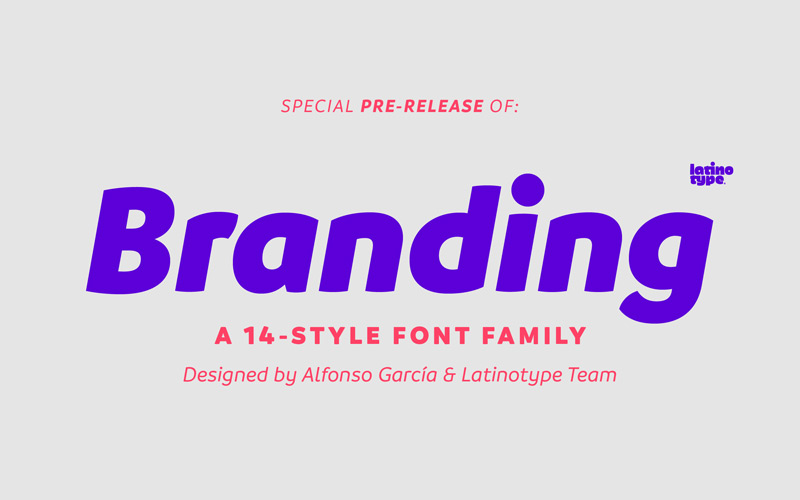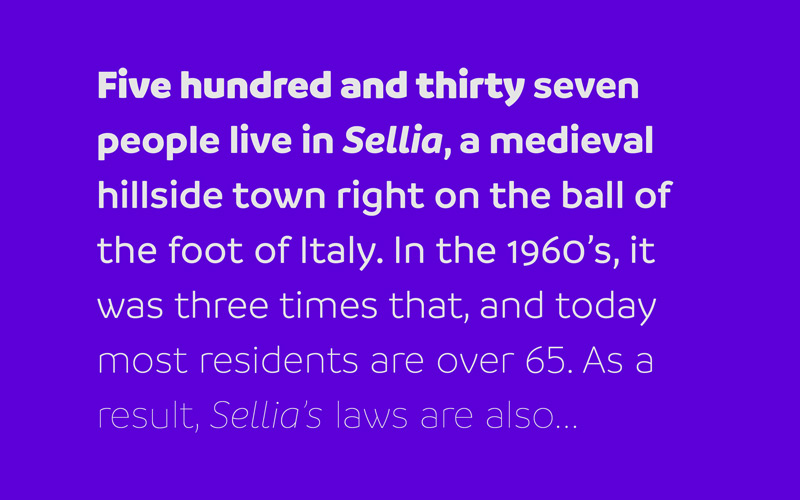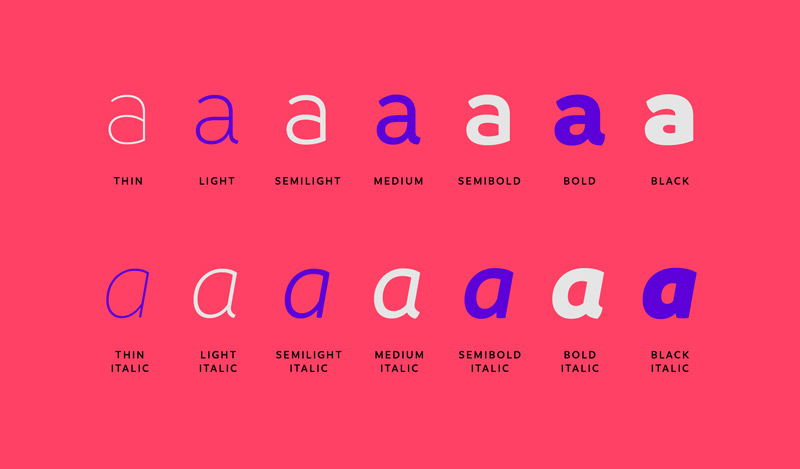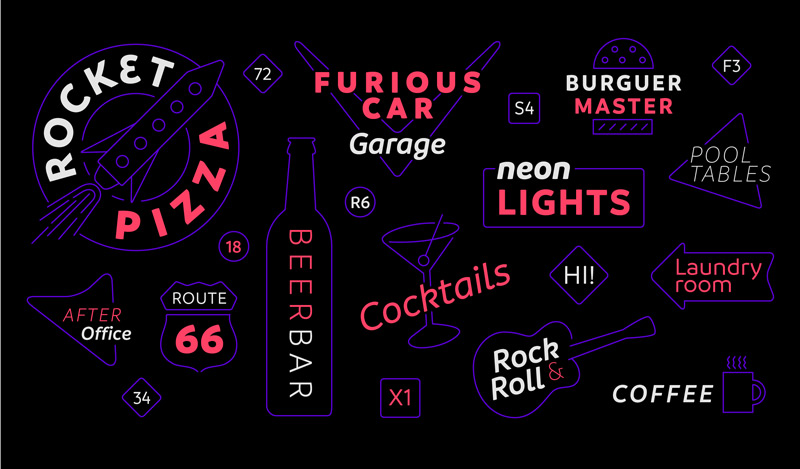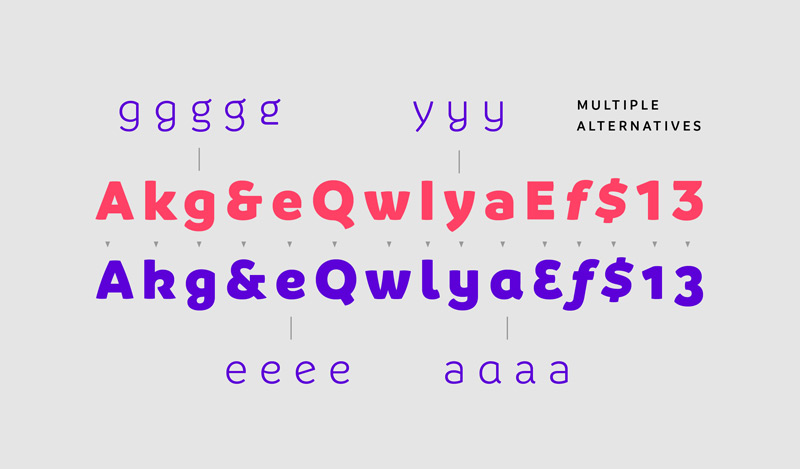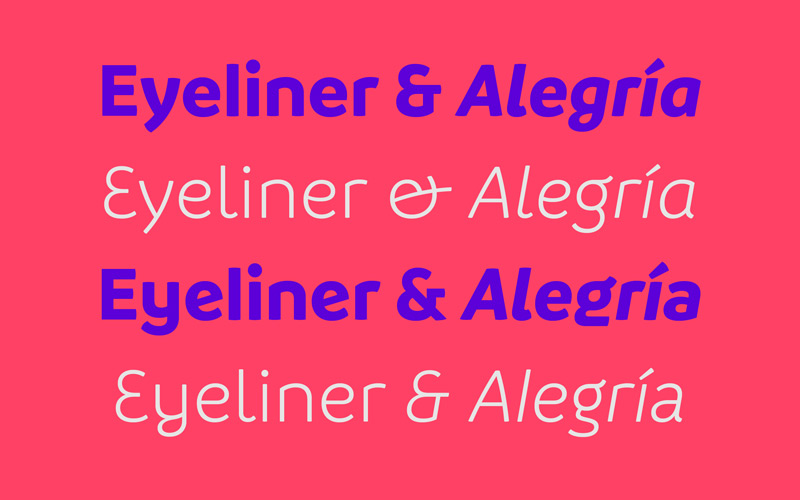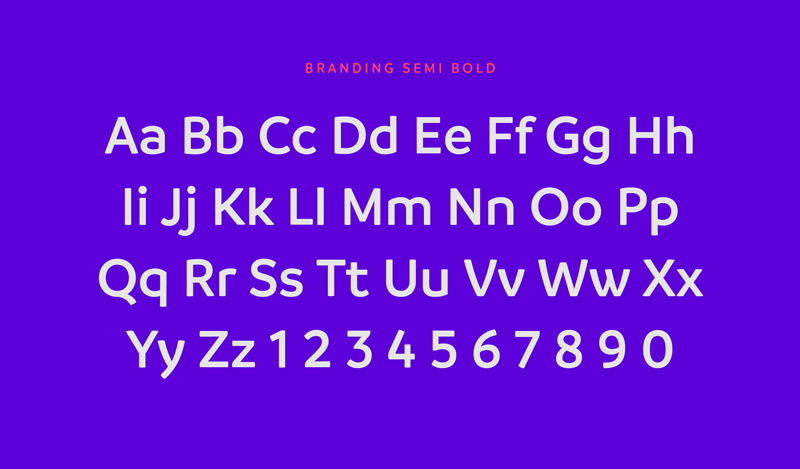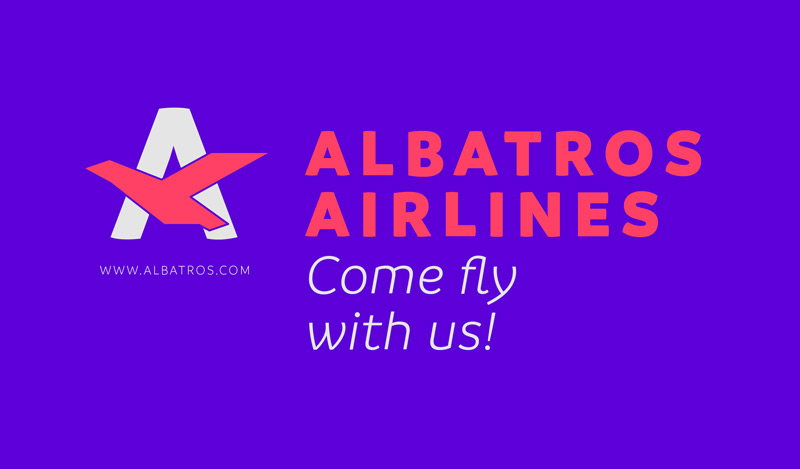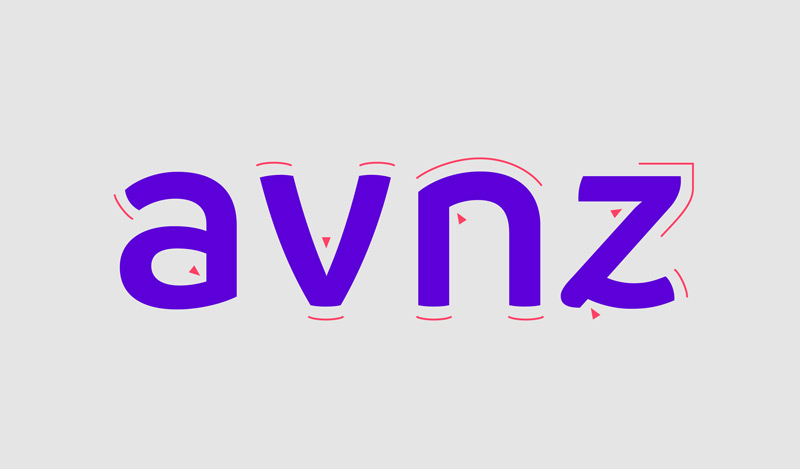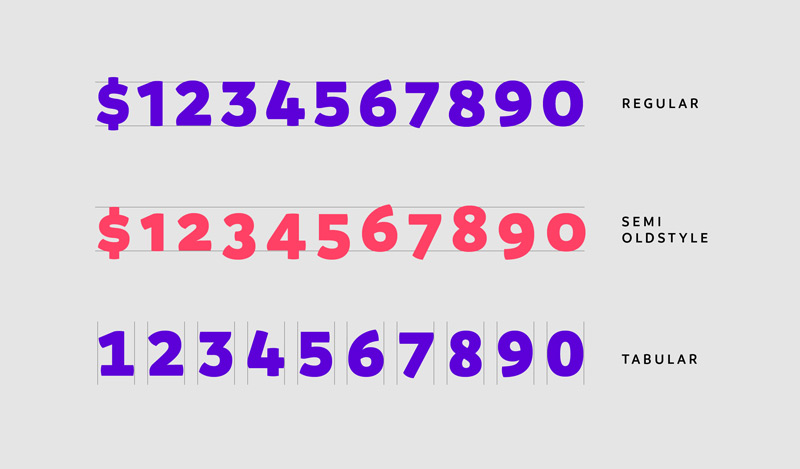
Latinotype recently launched a typeface designed to be a perfect fit for branding. Appropriately named “Branding“, the font comes in 7 weights, from thin to black, and includes a set of 544 characters to be able to support 128 languages.
The sans-serif typeface has a medium-large x-height, slightly wider horizontal proportions, straight curves and convex terminals, which makes it a good fit for logotypes.